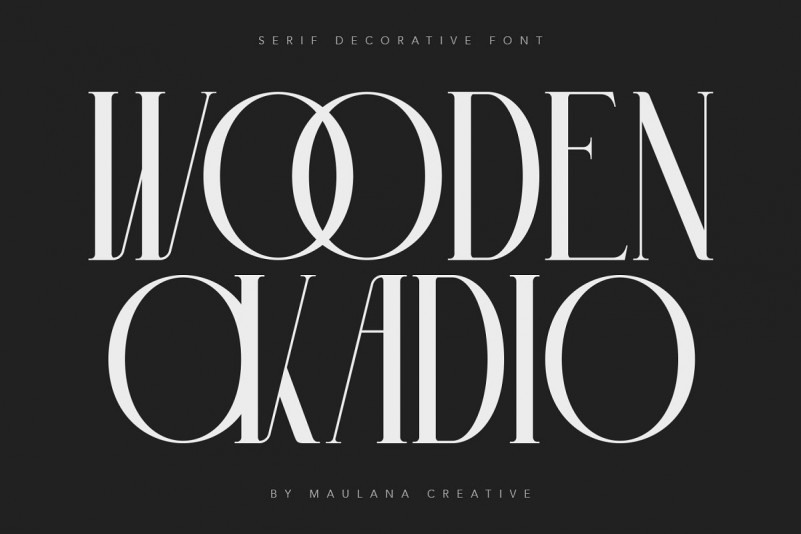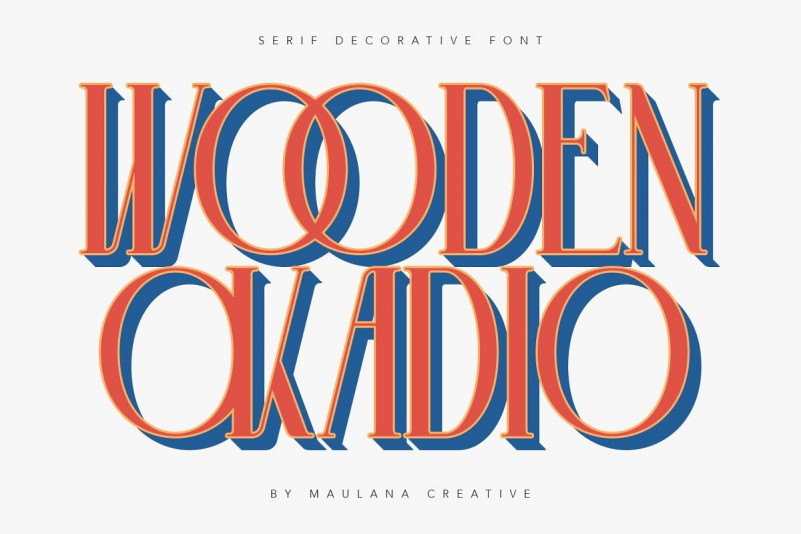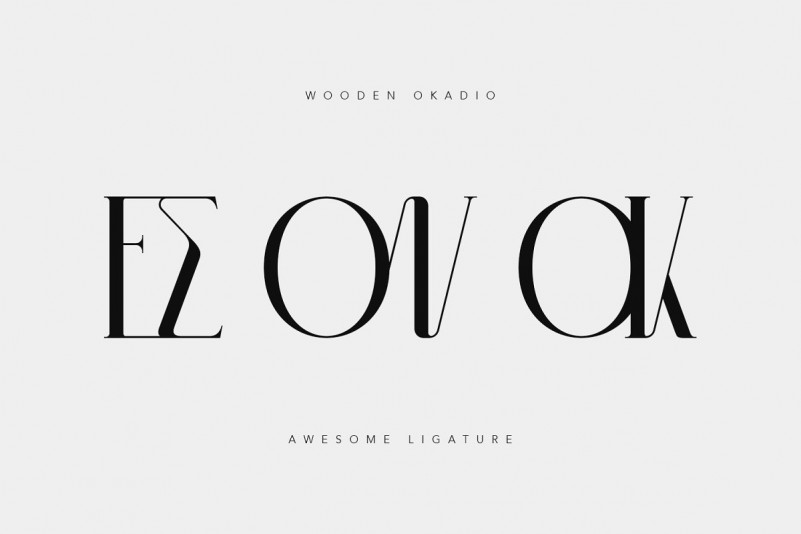
Wooden Okadio Font
Wooden Okadio Serif is a single weight black serif, modern casual typeface perfect use for headline, logo, magazine, and any editorial design needs also readable body text.